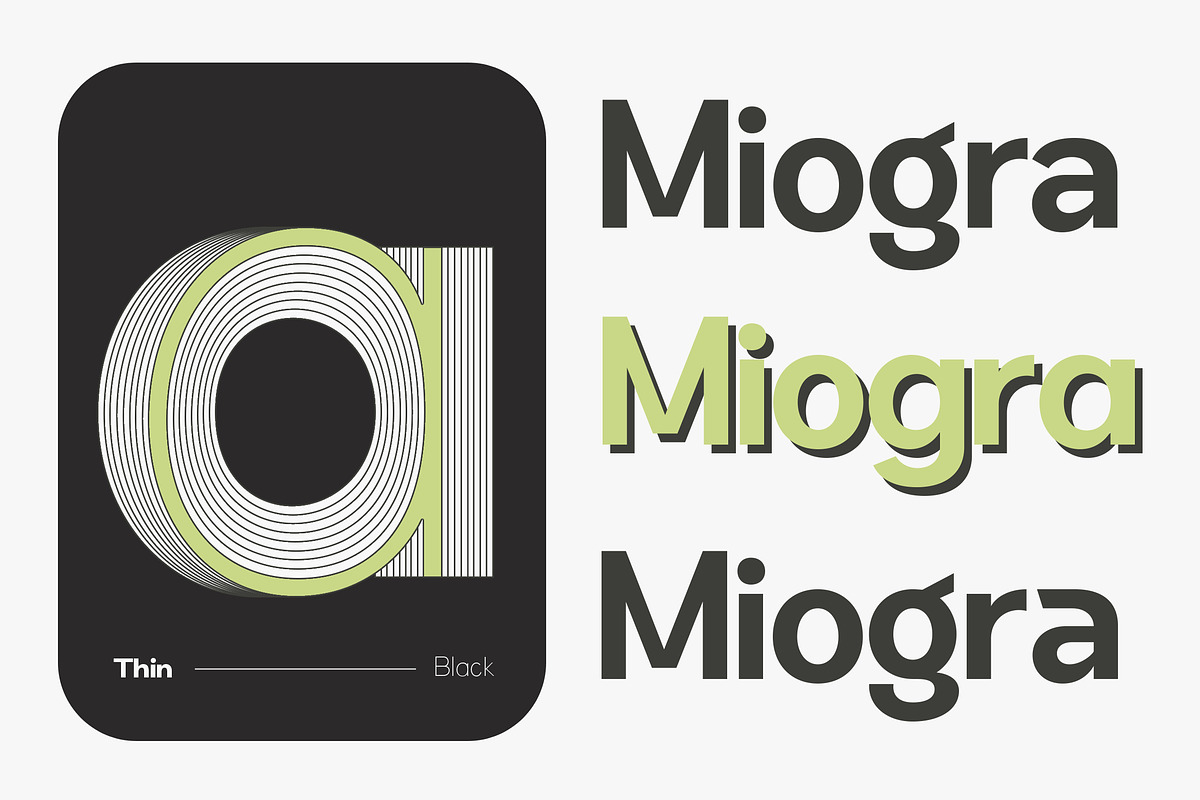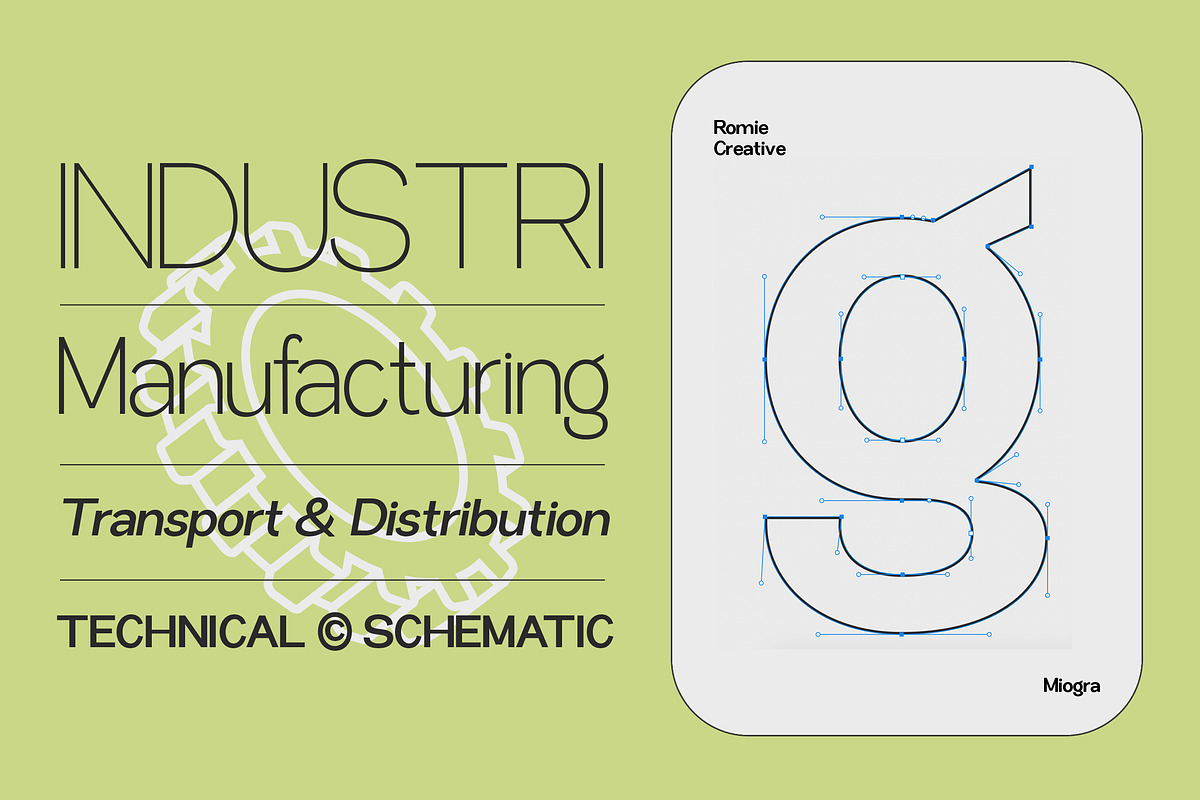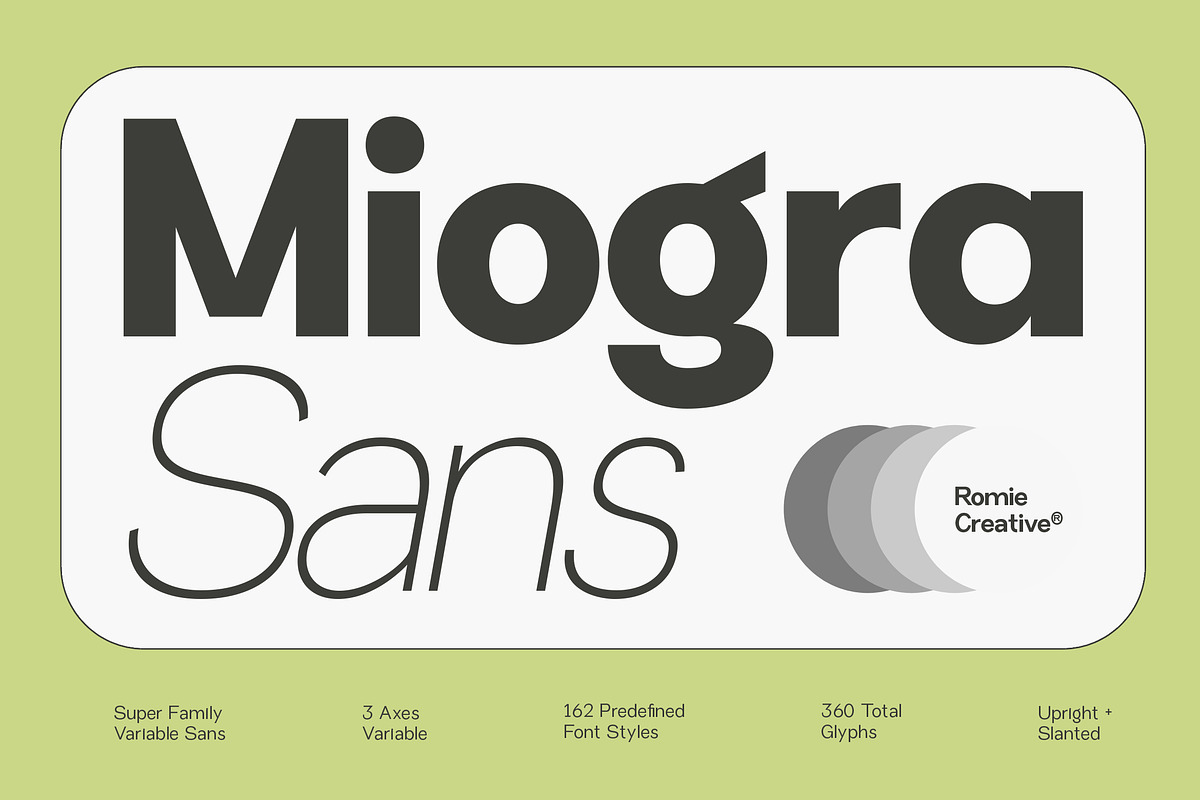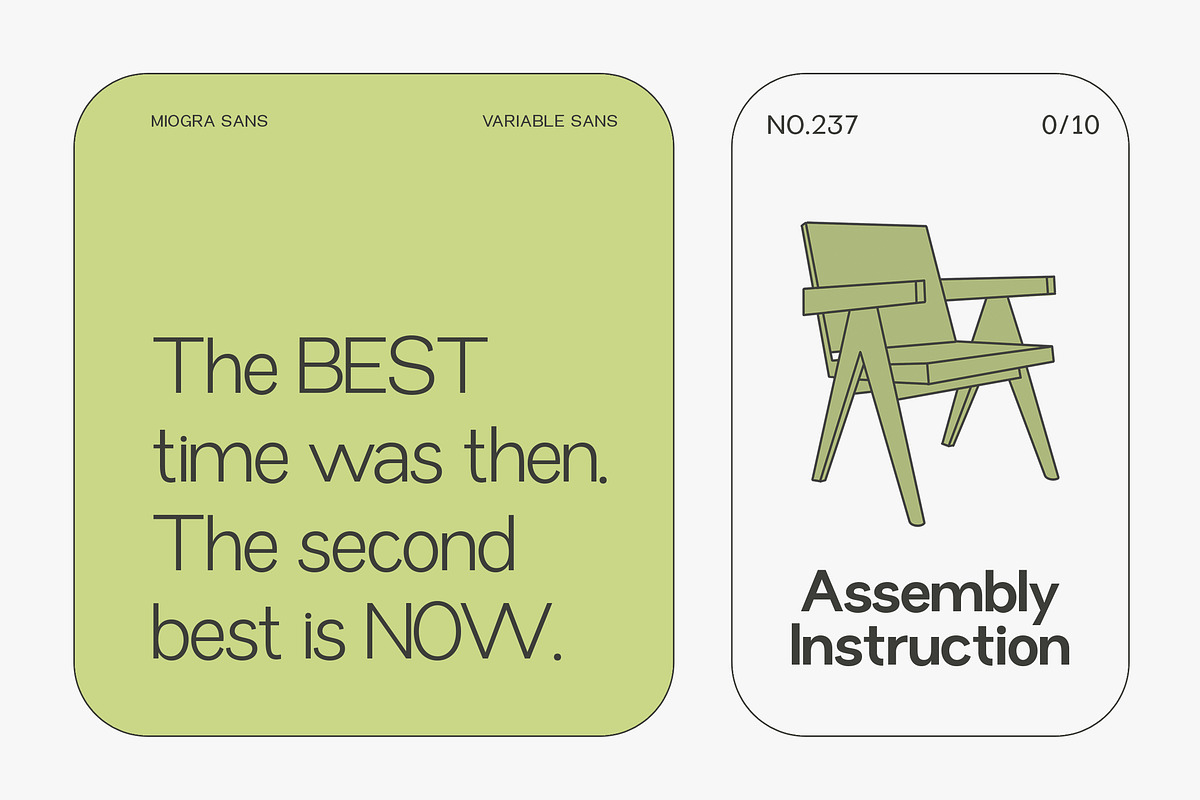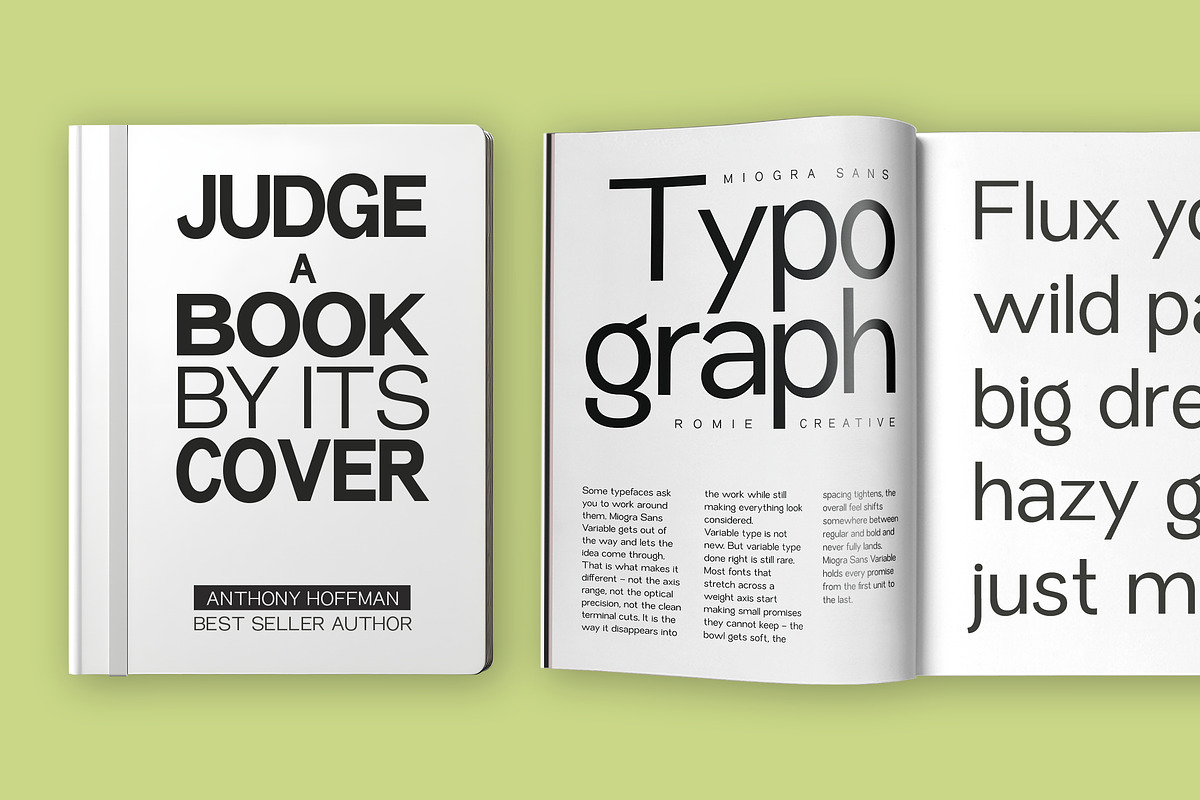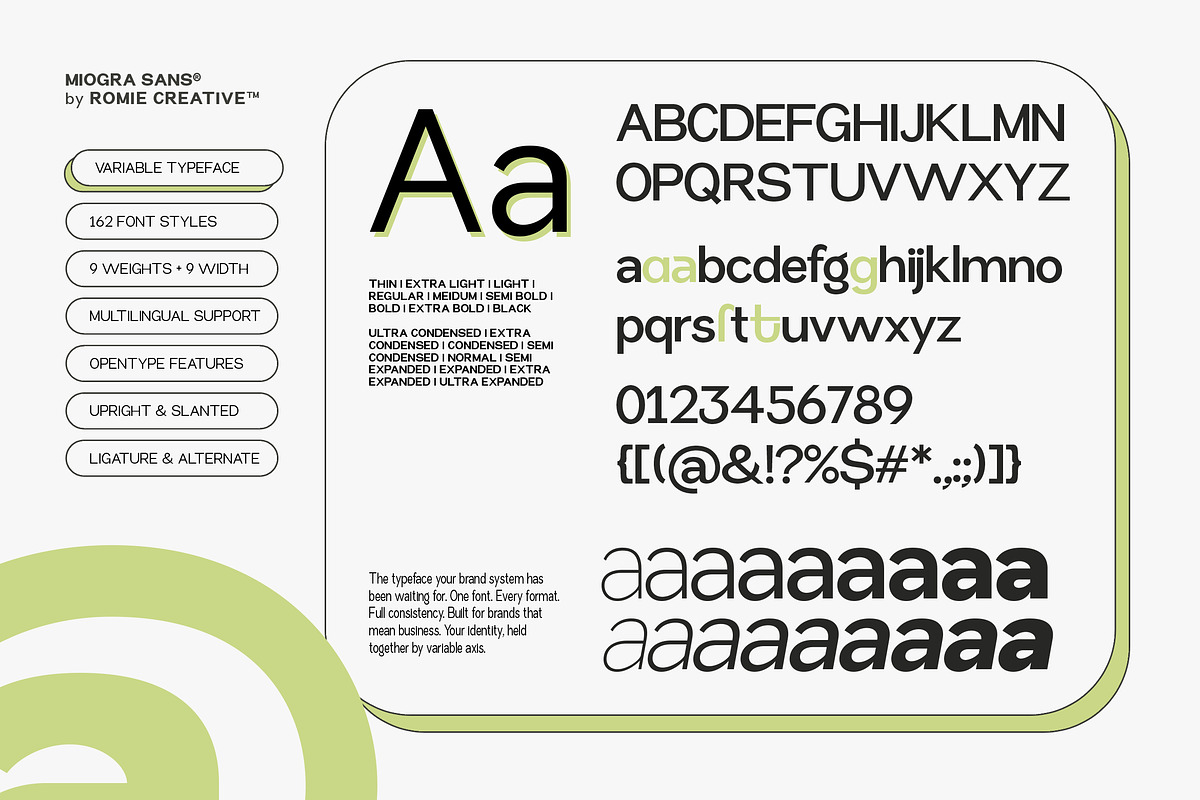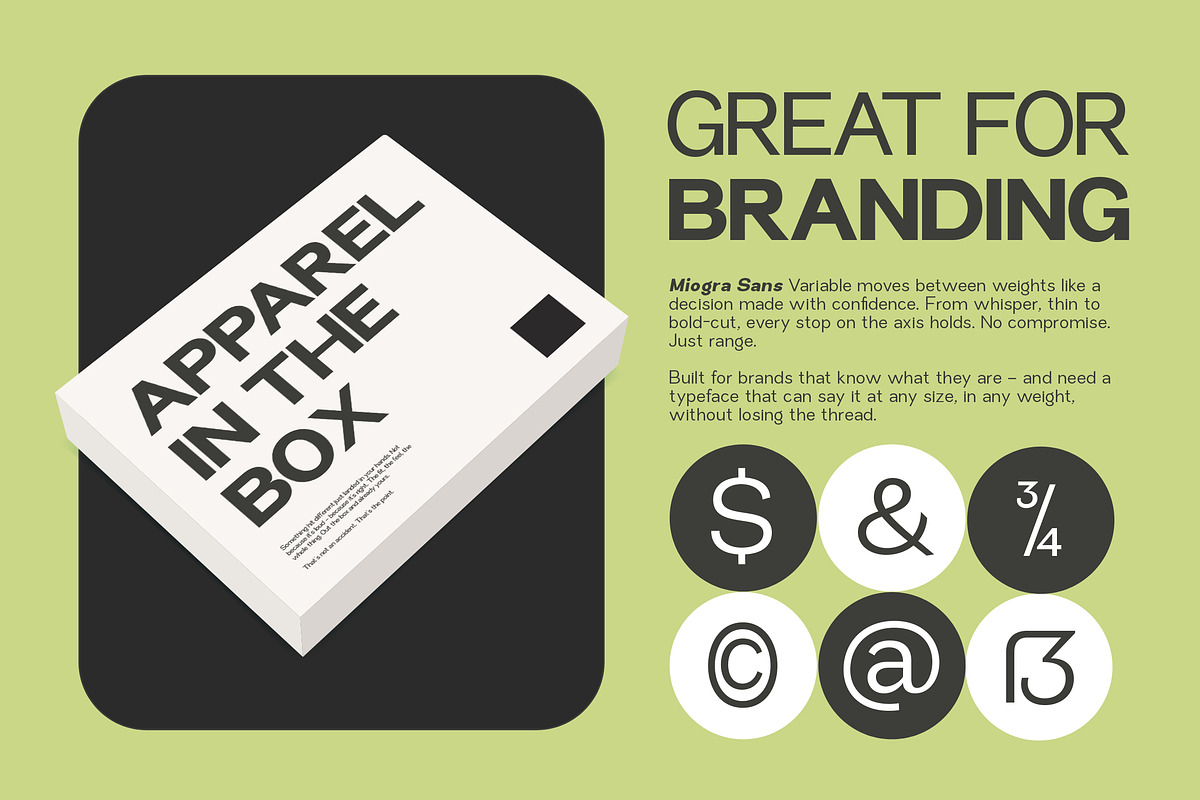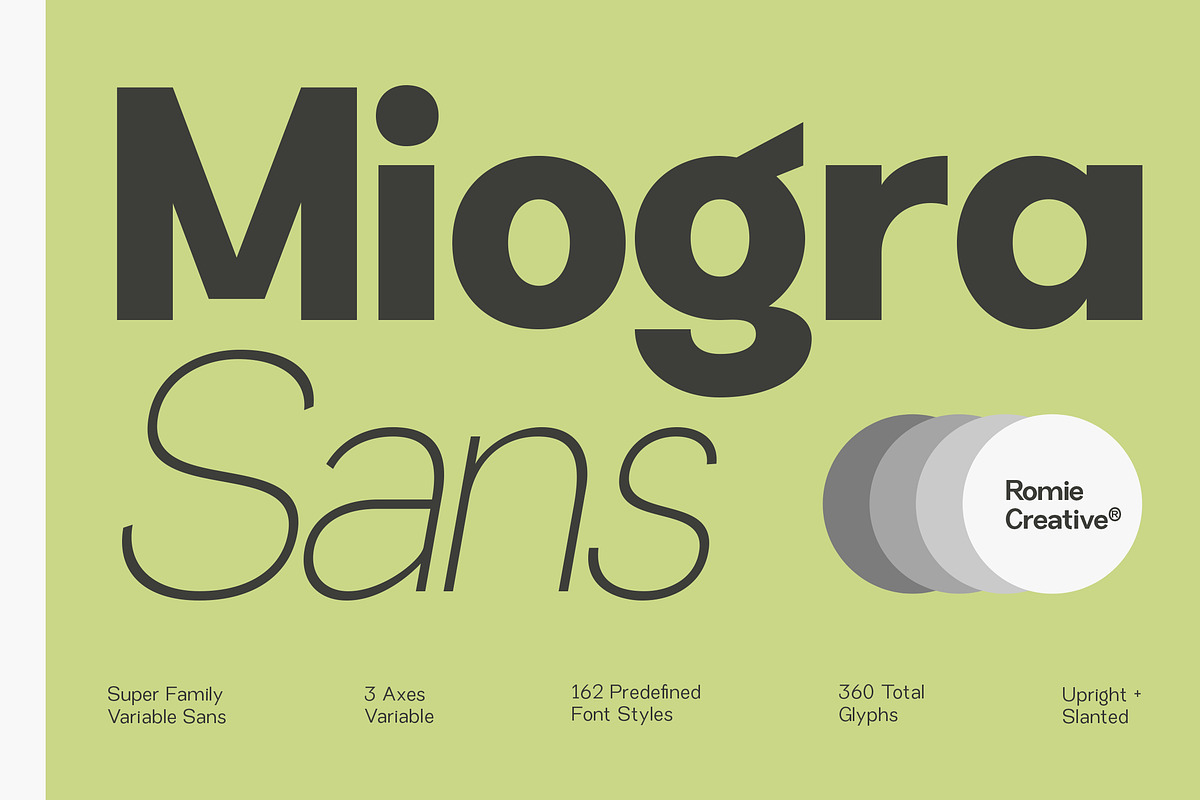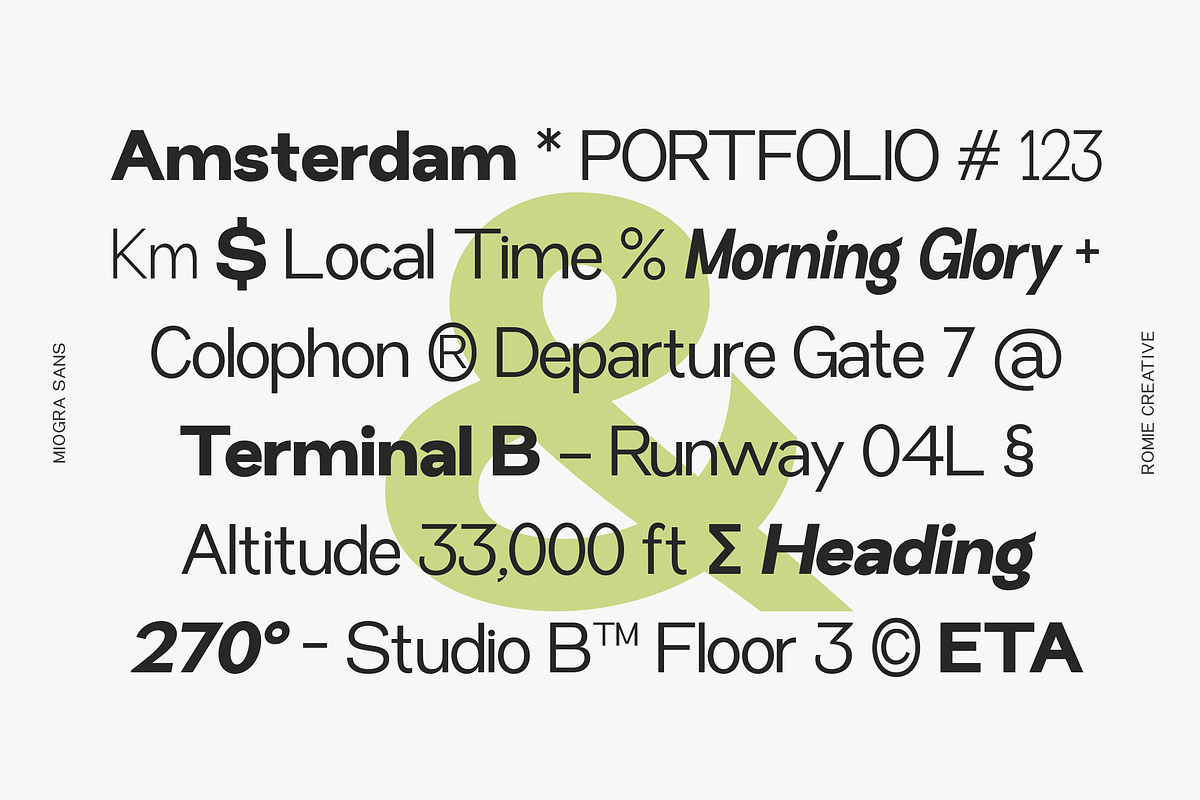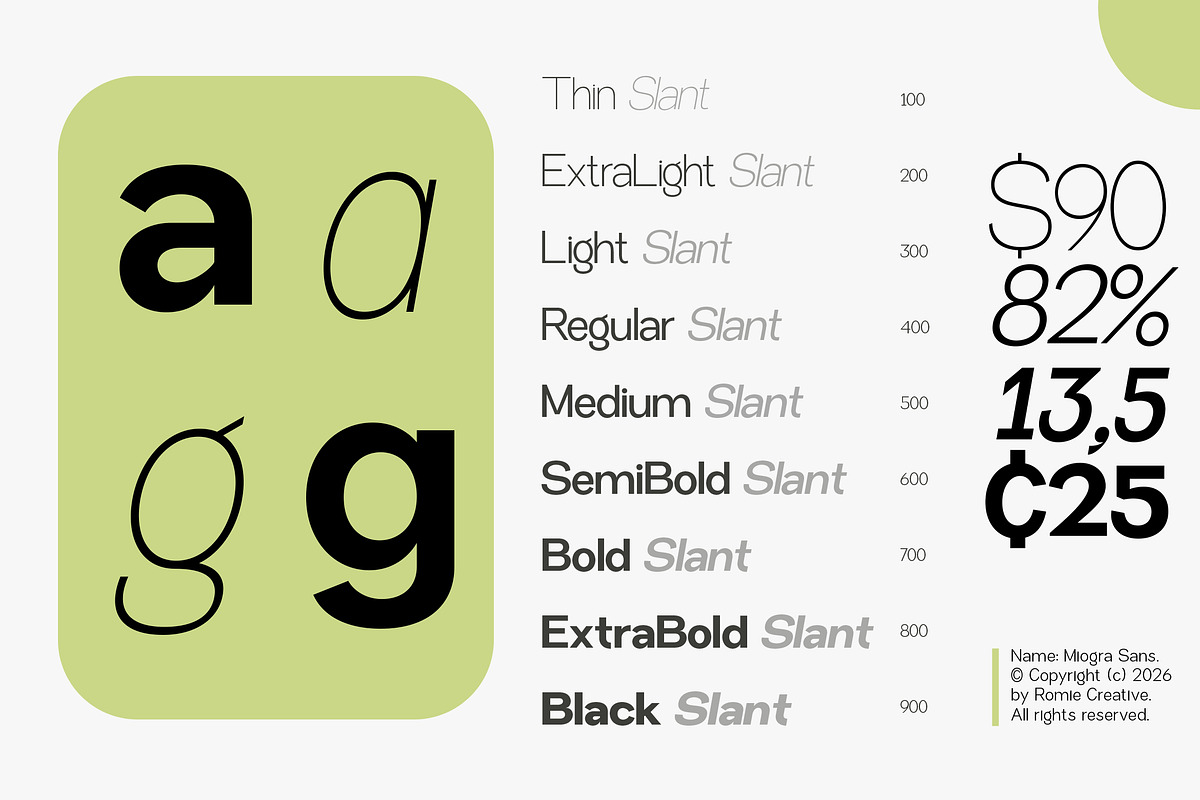
Miogra Sans
Miogra Sans is a modern, highly versatile variable sans-serif typeface designed for flexibility and clean visual impact. It features a contemporary geometric structure with smooth curves and balanced proportions, making it suitable for both display and text use. This typeface includes multiple variable axes, allowing designers to adjust weight, slant, and other stylistic attributes for precise customization. With a wide range of predefined styles and an extensive glyph set, Miogra Sans supports diverse design needs and multilingual typography. Its design combines clarity with personality: bold weights appear strong and confident, while lighter styles feel elegant and refined. The availability of both upright and slanted versions enhances its adaptability across branding, editorial layouts, digital interfaces, and creative projects. Overall, Miogra Sans is a flexible, modern font family that blends functionality with a distinctive, contemporary aesthetic.